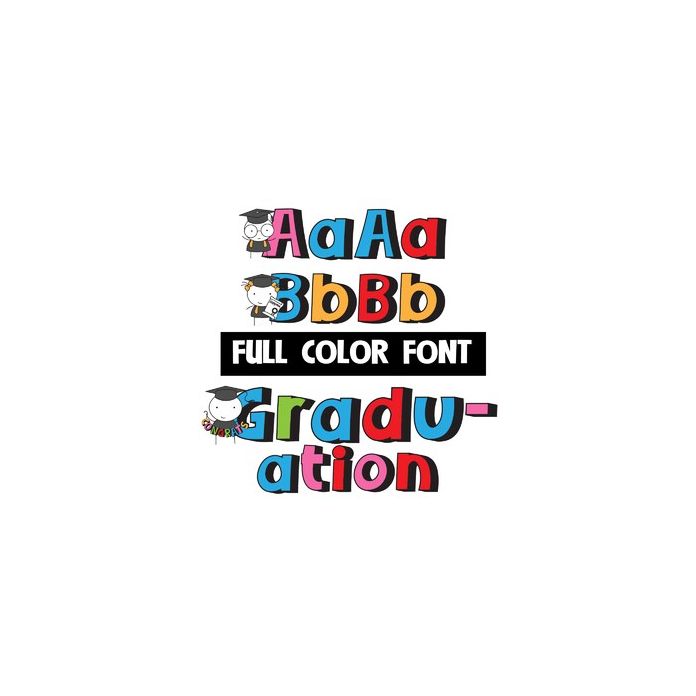
This full-color font features graduating stick figures on the uppercase. The lowercase is without. A second upper and lowercase is available through Silhouette's glyph map.